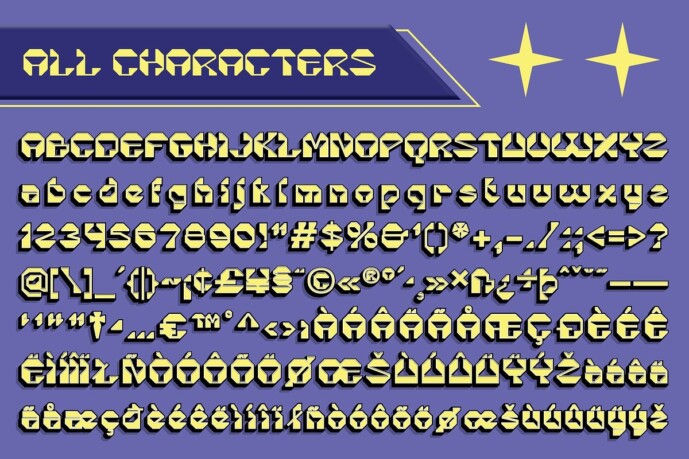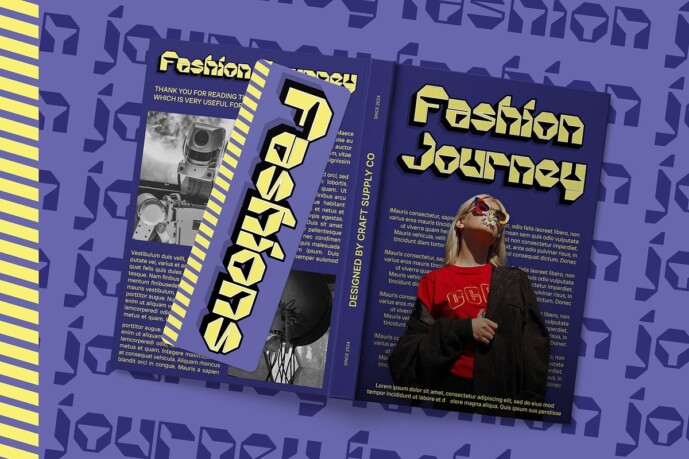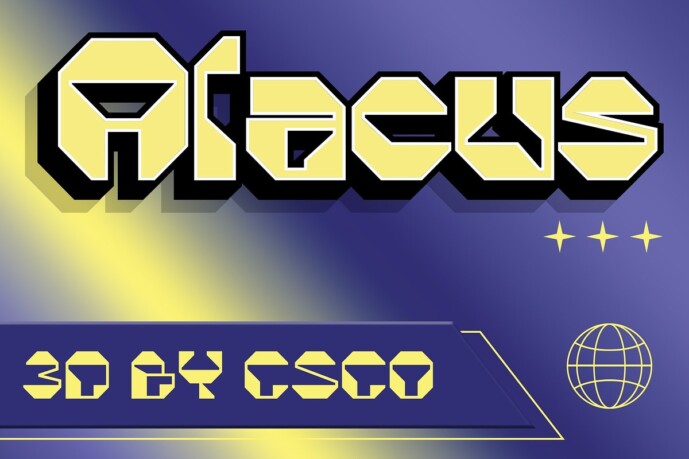
Alacus 3D Font
Alacus 3D Font is a futuristic display font that showcases a geometric design with sharp angles and bold shapes. Its clean lines and modern aesthetic make it ideal for designs that emphasize a futuristic and technological impression.
Adding a dynamic touch, Alacus 3D features a 3D effect that enhances visual depth and dimension. This effect brings the font to life, making it stand out in digital interfaces, tech-related projects, and modern design contexts.
Designed for projects aiming to convey a modern and innovative appearance, Alacus3D is perfect for logos, headlines, and branding materials that require a bold and cutting-edge typeface. Its geometric precision and 3D effect ensure a memorable visual impact.
Despite its futuristic design, Alacus 3D maintains versatility across various design applications. Whether used in web design, advertising, or product packaging, this font delivers clarity and sophistication while pushing boundaries in visual expression.
In conclusion, Alacus 3D is a futuristic display font that combines geometric precision with a captivating 3D effect. Suitable for designs emphasizing a modern and technological impression, this font enhances any project with its innovative and dynamic visual presence.